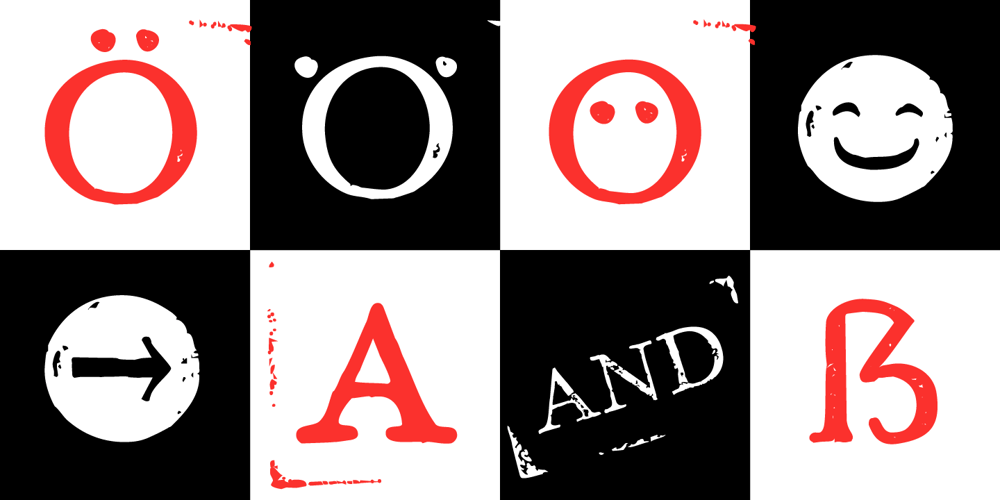
Hand Stamp Play Rough Serif Font Family was designed by Manuel Viergutz and published by TypoGraphicDesign. Hand Stamp Play Rough Serif contains 2 styles and family package options. “Hand Stamp Play Rough Serif” is a rough and dirty serif Font with authentic & real stamp look. Original Hand Stamped. A–Z, a–z, and 0–9 are each 3× different forms (every letter/glyph has two additional alternate characters) and is intended to show the hand-made nature and the vibrancy of the display font. The different pressure (velocity) of the stamp on paper creates a liveliness in the typeface. Ligatures like ae, oe, AE, OE, ff, fl, fi, fj, ffl, ffj, ffi, and additional logotypes like and, the, by, tel fax, web, www … and a Versal Eszett (Capital Letter Double S) give the Font more life and shows that despite their retro-looks works with modern OpenType technology (from ❤ love is, from luck will ✤ … ). Replacing the glyphs “E” instead of “3” to convey that typeface invites you to play. It is the desire to experiment and promote uninhibited experimentation. A variety of alternative letters and a few glyphs follow her own head @, &, ₤, £, “,”, * … The typeface has its quirks and downright human characteristics to “just love.” Have fun with this font – Just Stamp It. Application Area The serif font works best for headline size. Logo, Poster, Editorial Design (Magazine or Fanzine) or Webdesign (Headline Webfont for your website), Webbanner, party flyer, movie poster, music covers … How To Use – awesome magic OpenType-Features in your layout application ■ In Adobe Photoshop and Adobe InDesign, font feature controls are within the Character panel sub-menu → OpenType → Discretionary Ligatures … Checked features are applied/on. Unchecked features are off. ■ In Adobe Illustrator, font feature controls are within the OpenType panel. Icons at the bottom of the panel are button controls. Darker ‘pressed’ buttons are applied/on. ■ Additionally in Adobe InDesign and Adobe Illustrator, alternate glyphs can manually be inserted into a text frame by using the glyphs panel. The panel can be opened by selecting Window from the menu bar → Type → Glyphs. Or use sign-overview of your operating system. ■ For a overview of OpenType-Feature compatibility for common applications, follow the myfonts-help http://www.myfonts.com/help/#looks-different ■ It may process a little bit slowly in some applications, because the font has a lot of lovely rough details (anchor points). Technical Specifications ■ Font Name: Hand Stamp Play Rough Serif ■ Font Weights: Regular, Bold ■ Fonts Category: Display for Headline Size ■ Desktop-Font: OTF (OpenType Font for Mac + Win) + TTF (TrueType Font) ■ Web-Font: SVG + EOT + TTF + WOF ■ Font License: Desktop license, Web license, App license, eBook license, Server license ■ Glyph coverage: 617 ■ Language Support: Albanian, Alsatian, Aragonese, Arapaho, Aromanian, Arrernte, Asturian, Aymara, Basque, Bislama, Bosnian, Breton, Cebuano, Chamorro, Cheyenne, Chichewa (Nyanja), Cimbrian, Corsican, Croatian, Czech, Danish, Dutch, English, Estonian, Faroese, Fijian, Finnish, French Creole (Saint Lucia), Frisian, Friulian, Galician, Genoese, German, Gilbertese (Kiribati), Greenlandic, Guarani, Haitian Creole, Hawaiian, Hiligaynon, Hmong, Hopi, Hungarian, Ibanag, Iloko (Ilokano), Indonesian, Interglossa (Glosa), Interlingua, Irish (Gaelic), Islandic, Istro-Romanian, Italian, Jèrriais, Kashubian, Kurdish (Kurmanji), Ladin, Latvian, Lithuanian, Lojban, Lombard, Low Saxon, Luxembourgian, Malagasy, Maltese, Manx, Maori, Megleno-Romanian, Mohawk, Nahuatl, Norfolk/Pitcairnese, Northern Sotho (Pedi), Norwegian, Occitan, Oromo, Pangasinan, Papiamento, Piedmontese, Polish, Portuguese, Potawatomi, Rhaeto-Romance, Romanian, Romansh (Rumantsch), Rotokas, Sami (Inari), Sami (Lule), Samoan, Sardinian (Sardu), Scots (Gaelic), Seychellois Creole (Seselwa), Shona, Sicilian, Slovak, Slovenian (Slovene), Somali, Southern Ndebele, Southern Sotho (Sesotho), Spanish, Swahili, Swati/Swazi, Swedish, Tagalog (Filipino/Pilipino), Tahitian, Tausug, Tetum (Tetun), Tok Pisin, Tongan (Faka-Tonga), Tswana, Turkish, Turkmen, Turkmen (Latinized), Tuvaluan, Uyghur (Latinized), Veps, Volapük, Votic (Latinized), Walloon, Warlpiri, Welsh, Xhosa, Yapese, Zulu ■ Specials: Alternative letters, Versal Eszett (German Capital Sharp S), symbols, dingbats, digits, accents & €, incl. OpenType-Features like Access All Alternates (aalt), Contextual Alternates (calt), Glyph Composition/Decomposition (ccmp), Discretionary Ligatures (dlig) Denominators (dnom), Fractions (frac), Kerning (kern), Standard Ligatures (liga), Numerators (numr), Ordinals (ordn), Stylistic Alternates (salt), Stylistic Set 01 (ss01), Stylistic Set 02 (ss02), Stylistic Set 03 (ss03), Superscript (sups), Slashed Zero (zero) ■ Design Date: 2014 ■ Type Designer: Manuel Viergutz